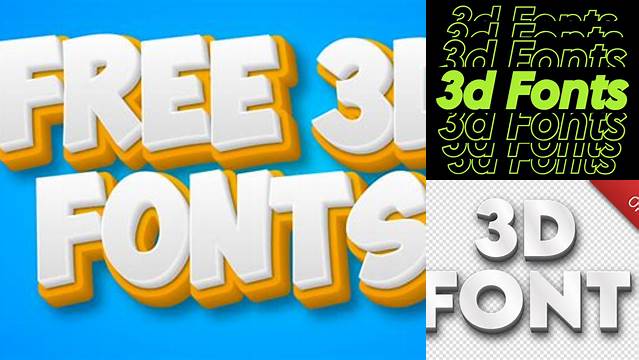
Best Fonts For 3D Text: A Comprehensive Guide
Hey guys! Ever wondered what makes 3D text really pop? It's not just about the model or the rendering – the font you choose plays a major role. Picking the right font can elevate your 3D designs from meh to magnificent. In this comprehensive guide, we'll dive deep into the world of fonts, exploring the best options for 3D text, what makes them work, and how to use them effectively. Whether you're a seasoned designer or just starting out, this article will equip you with the knowledge to make your 3D text shine. So, let's get started!
Why Font Choice Matters in 3D Text
When it comes to 3D text, the font isn't just a stylistic choice; it's a foundational element that dictates the entire visual impact. Think of it this way: the font is the skeleton of your 3D text, giving it structure, form, and personality. A poorly chosen font can lead to illegibility, a lack of visual appeal, and even rendering issues. On the other hand, the right font can enhance readability, convey the intended message effectively, and add a touch of professionalism and creativity to your work. Consider the message you're trying to convey. Are you going for a futuristic, tech-savvy vibe? Or perhaps a more classic, elegant feel? The font needs to align with that vision. For instance, a sleek, sans-serif font might be perfect for a tech company's logo, while a serif font with ornate details could be ideal for a vintage-inspired design. Beyond aesthetics, technical aspects come into play as well. Some fonts translate better into 3D than others. Fonts with clean lines and consistent thickness tend to work well, while those with overly intricate details or thin strokes may cause problems during the 3D conversion or rendering process. The font’s structure affects how light interacts with the 3D model. A font with sharp edges and distinct angles will create strong highlights and shadows, adding depth and dimension. Conversely, a font with rounded edges might produce a softer, more subtle effect. In essence, selecting the perfect font for your 3D text is a crucial step in the design process. It's about finding the sweet spot where aesthetics meet functionality, ensuring that your message is not only visually appealing but also technically sound. So, let's explore some of the best font categories and specific examples that can help you create stunning 3D text.
Top Font Categories for 3D Text
Alright, let's break down the top font categories that work wonders for 3D text. Knowing these categories will help you narrow down your choices and find the perfect fit for your project. We'll cover everything from the clean and modern sans-serif fonts to the elegant and timeless serif fonts, and even explore some display fonts for those extra special occasions. Each category brings its unique flavor to the table, so let’s dive in!
Sans-Serif Fonts: Clean and Modern
Sans-serif fonts are your go-to choice for a clean, modern, and minimalist look in 3D text. These fonts lack the small decorative strokes (serifs) that you see in other font types, giving them a streamlined and contemporary feel. Their simplicity makes them incredibly versatile, working well in a variety of applications, from logos and branding to website headers and 3D animations. One of the main reasons sans-serif fonts excel in 3D is their readability. The absence of serifs means that the letterforms are less cluttered, making them easy to read even when rendered in 3D. This is particularly important for text that needs to be legible from different angles or in dynamic environments. The clean lines and geometric shapes of sans-serif fonts also translate beautifully into 3D models. They create sharp, well-defined edges and surfaces, which enhance the three-dimensional effect. This makes them a fantastic choice for projects where you want to convey a sense of precision and professionalism. Moreover, sans-serif fonts are incredibly adaptable to various 3D effects, such as extrusions, bevels, and lighting. Their simple structure allows these effects to be applied without distorting the legibility of the text. Whether you're aiming for a subtle, minimalist look or a bold, impactful statement, sans-serif fonts can deliver. When selecting a sans-serif font for 3D text, consider the weight and width of the letterforms. A font with consistent stroke thickness will generally produce a more balanced 3D model. Also, think about the spacing between letters (kerning) and lines (leading) to ensure optimal readability. Now, let's look at some specific examples of sans-serif fonts that are particularly well-suited for 3D:
- Helvetica: A classic and widely used sans-serif font known for its neutrality and clarity.
- Arial: Another popular choice, Arial is a versatile font that works well in a variety of contexts.
- Futura: A geometric sans-serif font that exudes a modern and futuristic vibe.
- Open Sans: A highly readable font designed for digital interfaces, making it perfect for 3D text in web and app designs.
- Montserrat: A stylish sans-serif font that's great for headlines and branding.
Serif Fonts: Elegant and Timeless
On the flip side, we have serif fonts, which bring a touch of elegance, tradition, and timelessness to your 3D text. Unlike sans-serif fonts, serif fonts have those little decorative strokes (serifs) at the ends of letterforms. These serifs give the letters a more formal and refined appearance, making them a popular choice for projects that require a classic or sophisticated feel. Serif fonts are often associated with print media, such as books, newspapers, and magazines, but they can also be incredibly effective in 3D designs. They add a sense of history and prestige, which can be particularly useful for brands or projects that want to convey trust and authority. When used in 3D, serif fonts create a unique visual dynamic. The serifs themselves can add intricate details and interesting shadow patterns, enhancing the depth and dimensionality of the text. However, it’s crucial to choose a serif font carefully for 3D applications. Fonts with overly delicate serifs or thin strokes may not translate well into 3D models, potentially causing rendering issues or legibility problems. The key is to find a serif font that has a balanced weight and well-defined serifs. Fonts with thicker serifs tend to hold up better in 3D, ensuring that the details are visible and the text remains readable. Additionally, consider the overall structure of the font. A serif font with a clear and consistent design will generally produce a more polished and professional 3D result. Serif fonts can be particularly effective when used in conjunction with lighting and material effects in 3D. The serifs can catch the light in interesting ways, creating subtle highlights and shadows that add depth and visual interest. They can also complement different material finishes, such as metal, wood, or stone, to create a realistic and tactile appearance. Here are some excellent serif fonts to consider for your 3D text projects:
- Times New Roman: A classic serif font that's widely recognized and highly legible.
- Georgia: Designed for screen readability, Georgia is a versatile serif font that works well in both print and digital media.
- Baskerville: An elegant and refined serif font with a timeless appeal.
- Garamond: A sophisticated serif font that exudes a sense of history and tradition.
- Playfair Display: A stylish serif font with a modern twist, perfect for headlines and display text.
Display Fonts: Unique and Eye-Catching
Now, if you're looking to make a bold statement and really grab attention, display fonts are your secret weapon. These fonts are designed to be eye-catching and unique, making them perfect for headlines, logos, and any 3D text that needs to stand out from the crowd. Display fonts come in a vast array of styles, from quirky and playful to bold and dramatic. They often feature distinctive letterforms, unusual shapes, and decorative elements that set them apart from more traditional fonts. This makes them a fantastic choice for projects where you want to convey a strong personality or create a memorable visual impact. When using display fonts in 3D, the possibilities are endless. You can experiment with different textures, materials, and lighting effects to create truly stunning and unique designs. However, it's important to use display fonts judiciously. Because they are often highly stylized, they may not be suitable for large blocks of text or situations where readability is paramount. The best use case for display fonts is in short, impactful messages where the visual appeal is the primary goal. Think of using them for a title sequence in a 3D animation, a logo for a creative brand, or a striking headline on a website. The key to successfully using display fonts in 3D is to choose a font that complements your overall design and conveys the right message. Consider the tone and style of your project, and select a font that aligns with that aesthetic. For instance, a futuristic display font might be perfect for a tech-related project, while a vintage-inspired font could be ideal for a retro design. When rendering display fonts in 3D, pay close attention to the details. The unique shapes and decorative elements can create interesting shadows and highlights, but they can also pose challenges for rendering. Make sure to test different lighting setups and material finishes to achieve the desired effect. Here are some examples of display fonts that work exceptionally well in 3D:
- Bebas Neue: A clean and bold sans-serif font that's great for headlines and posters.
- Oswald: A versatile display font with a slightly condensed design, perfect for creating a strong visual impact.
- Lobster: A bold and quirky script font that adds a touch of personality to any design.
- ChunkFive: A slab-serif font with a vintage feel, ideal for retro-themed projects.
- Blackout: A bold and impactful display font that's perfect for making a statement.
Best Specific Fonts for 3D Text
Okay, guys, now that we've covered the main font categories, let's get down to specifics. Here are some of the absolute best fonts you can use for 3D text, along with why they work so well. We’ll look at a mix of sans-serif, serif, and display fonts to give you a well-rounded selection for your projects.
Let's Wrap It Up!
Alright, guys, we've covered a ton of ground in this guide to the best fonts for 3D text. From understanding why font choice matters to exploring different font categories and specific examples, you’re now armed with the knowledge to make your 3D text designs truly shine. Remember, the right font can elevate your work from good to amazing, so take the time to choose wisely. Whether you’re going for a clean and modern look with a sans-serif font, a touch of elegance with a serif, or a bold statement with a display font, the key is to align your font choice with your brand or project style, ensure readability in 3D, and consider the specific 3D effects you're planning to use. So, go forth and create some stunning 3D text! Experiment with different fonts, play around with effects, and most importantly, have fun with it. Your next 3D masterpiece is just a font choice away!